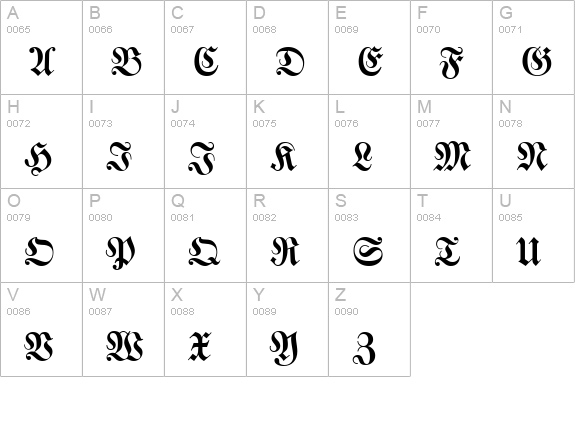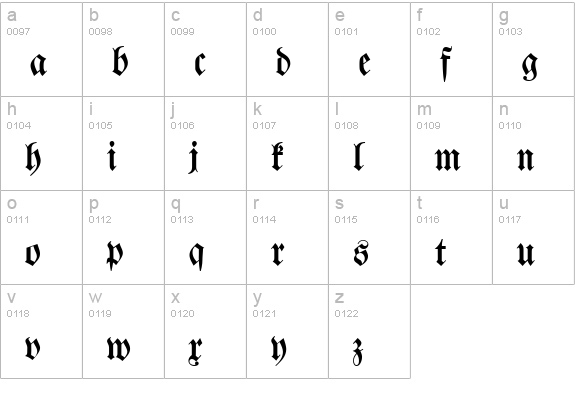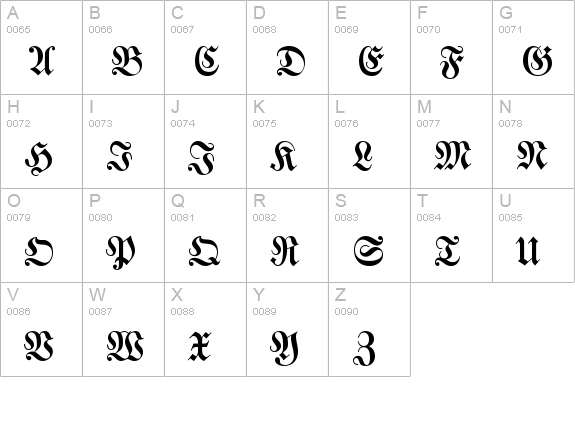
W650-Blackletter-Regular Font Details
W650-Blackletter-Regular is the standard, neutral variant in the W650 typeface family \xE2\x80\x94 well suited to general body text, paragraphs, and standard typographic work.
Introducing W650-Blackletter-Regular, a striking and elegant blackletter font that exudes a timeless charm and classic sophistication. This font is perfect for adding a touch of vintage flair to your designs, whether you're working on invitations, posters, logos, or branding projects. With its intricate details and unique letterforms, W650-Blackletter-Regular is sure to make a statement and capture attention. Its bold strokes and sharp edges give it a strong and impactful presence, making it ideal for creating eye-catching headlines and titles. The best part? W650-Blackletter-Regular is available for free download at FontsMarket.com, allowing you to bring the beauty and character of this font into your projects without any cost. Don't miss out on this opportunity to enhance your designs with a touch of old-world elegance – download W650-Blackletter-Regular today and let your creativity shine!